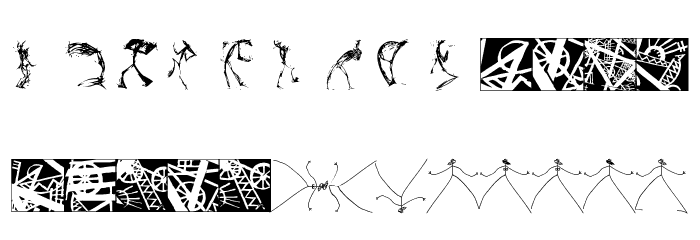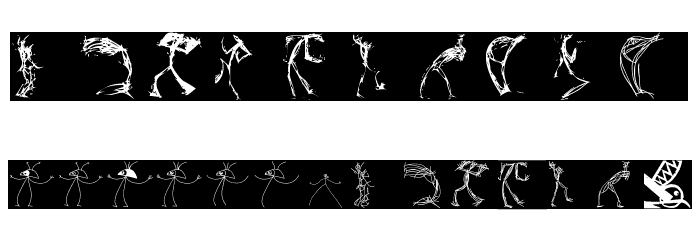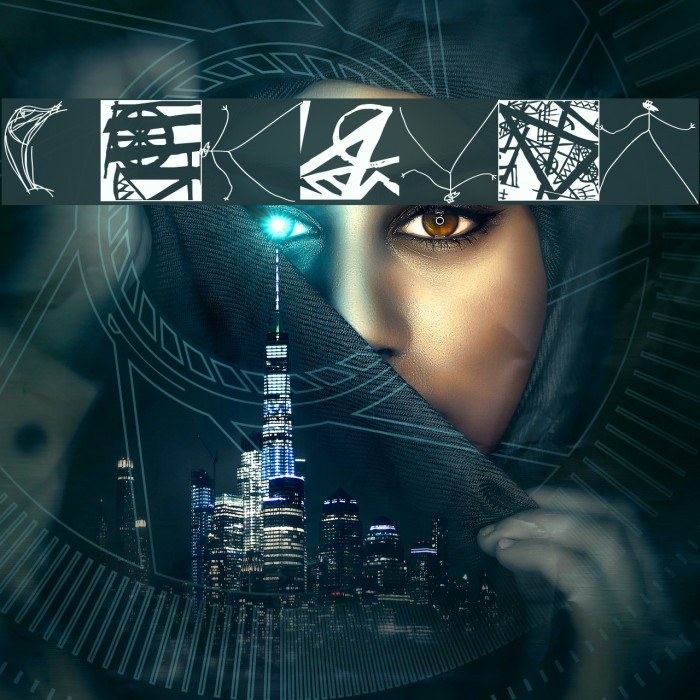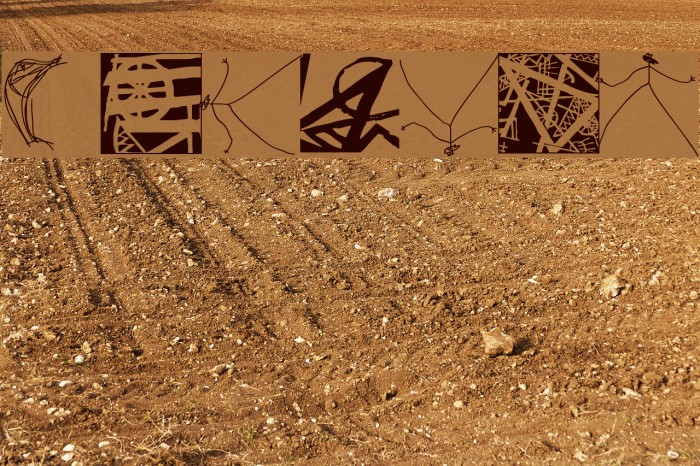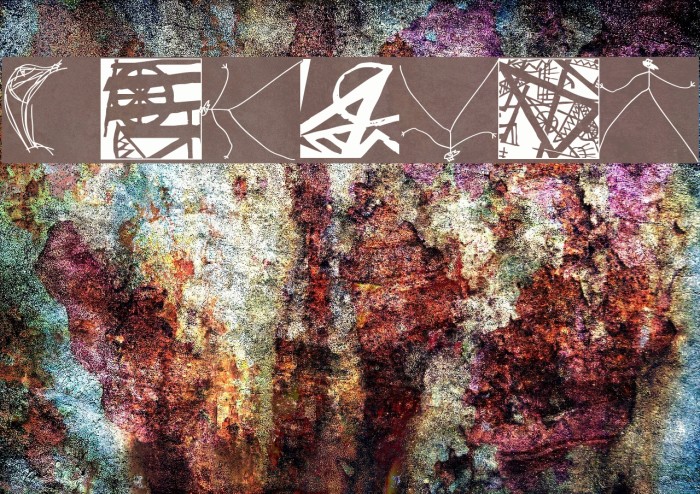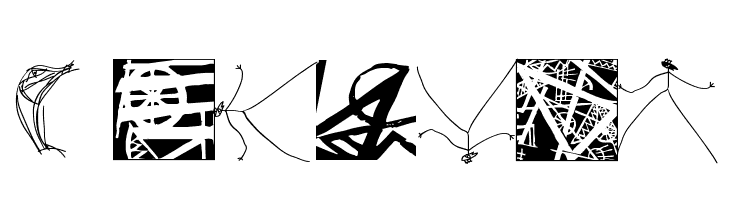
HotJuly Font
This font features a highly decorative and abstract design, incorporating elements that resemble intricate line drawings and abstract shapes. Each character is uniquely crafted, resembling a fusion of artistic sketches and geometric patterns. The font exudes a sense of creativity and spontaneity, with each letterform appearing as a standalone piece of art. The characters are composed of thin, delicate lines that intertwine and overlap, creating a complex visual texture. This font is ideal for projects that require a bold artistic statement, as it captures attention with its unconventional and avant-garde style.
An abstract, artistic font with intricate line drawings and geometric patterns.
- Proposed Projects: Ideal for artistic projects, album covers, posters, and creative branding that require a bold, unique visual impact.
- Weight: Light
- Overall Style: Avant-garde, Artistic
- Use Case: Logos, Posters, Artistic projects